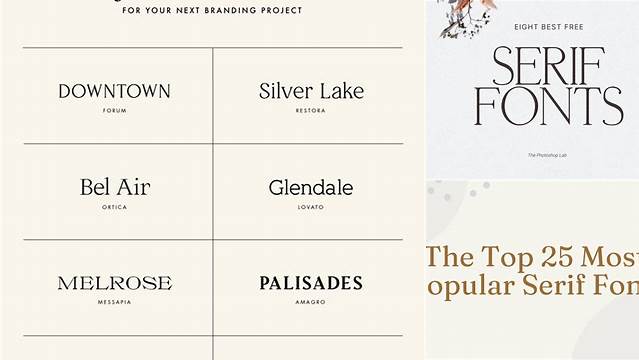
Serif Fonts: Free Downloads & Best Uses
Serif fonts, with their classic and elegant strokes, have been a cornerstone of typography for centuries. From the pages of timeless novels to the screens of modern websites, serif fonts evoke a sense of tradition, authority, and readability. In this comprehensive guide, we'll explore the world of serif fonts, where to find serif fonts download, and how to use them effectively in your design projects. So, buckle up, guys, and let's dive in!
Serif Font Styles
Exploring the world of serif fonts download reveals a fascinating array of styles, each with its unique characteristics and applications. Understanding these styles is crucial for selecting the perfect font to convey the desired tone and message in your design projects. Here's a breakdown of some prominent serif font styles:
Old-Style Serif Fonts
Old-style serif fonts are characterized by their organic, handwritten appearance, reflecting the early days of printing. These fonts typically feature low contrast between thick and thin strokes, bracketed serifs (the small details at the end of strokes), and a diagonal stress (the angle of the thickest part of the letter). Examples include Garamond, Caslon, and Bembo. Old-style serifs exude a sense of warmth, tradition, and readability, making them ideal for body text in books, magazines, and websites. They're like that cozy sweater you reach for on a chilly evening, providing comfort and familiarity to the reader.
When you're looking for serif fonts download for a project that needs a touch of history or classic elegance, old-style serifs are an excellent choice. They bring a certain gravitas and timelessness to any text, making them perfect for projects that require a sense of authority or sophistication. Think of historical novels, academic papers, or even high-end branding materials – old-style serifs can elevate the design and make it feel more refined.
Transitional Serif Fonts
Transitional serif fonts represent a bridge between old-style and modern serifs, incorporating elements of both. These fonts generally exhibit higher contrast than old-style serifs but less than modern serifs. Their serifs are typically sharper and more defined, and the stress is more vertical. Examples include Times New Roman, Baskerville, and Bookman. Transitional serifs offer a balance of readability and elegance, making them versatile for a wide range of applications, from body text to headlines.
For those seeking serif fonts download that provide a modern yet classic feel, transitional serifs are a go-to option. They're like the well-tailored suit that can be worn to both a business meeting and a formal dinner – versatile, reliable, and always in style. Times New Roman, for instance, is a workhorse font that has been used in countless publications and remains a popular choice for its clarity and readability.
Modern Serif Fonts
Modern serif fonts are characterized by their high contrast between thick and thin strokes, unbracketed serifs (serifs that connect abruptly to the main stroke), and a vertical stress. These fonts often appear sleek, elegant, and sophisticated. Examples include Didot, Bodoni, and Century. Modern serifs are best suited for headlines, titles, and display purposes, where their striking appearance can make a statement. However, their high contrast can make them less readable in large blocks of text.
When you're on the hunt for serif fonts download that scream sophistication and high fashion, modern serifs are the way to go. They're like the stiletto heels of the font world – stylish, attention-grabbing, and perfect for making a statement. Think of fashion magazines, luxury brand logos, and elegant invitations – modern serifs add a touch of glamour and sophistication to any design.
Slab Serif Fonts
Slab serif fonts, also known as Egyptian serifs, are characterized by their thick, block-like serifs. These fonts often have a bold, sturdy appearance, making them suitable for headlines, posters, and branding. Examples include Rockwell, Courier New, and Memphis. Slab serifs convey a sense of strength, stability, and sometimes even a vintage or industrial feel.
If you're looking for serif fonts download that pack a punch, slab serifs are an excellent choice. They're like the work boots of the font world – rugged, reliable, and built to last. Think of vintage posters, industrial logos, and bold headlines – slab serifs command attention and convey a sense of authority and strength.
Where to Find Serif Fonts for Download
Finding the perfect serif fonts download can feel like searching for a needle in a haystack, but don't worry, I've got you covered! There are tons of resources out there, both free and paid, where you can find high-quality serif fonts for your design projects. Let's explore some of the best options:
Google Fonts is a treasure trove of free, open-source fonts that you can use in your projects without worrying about licensing fees. They offer a wide variety of serif fonts, from classic options like Roboto Serif and Playfair Display to more unique and modern choices. The best part? Google Fonts are easy to embed on websites and integrate into design software.